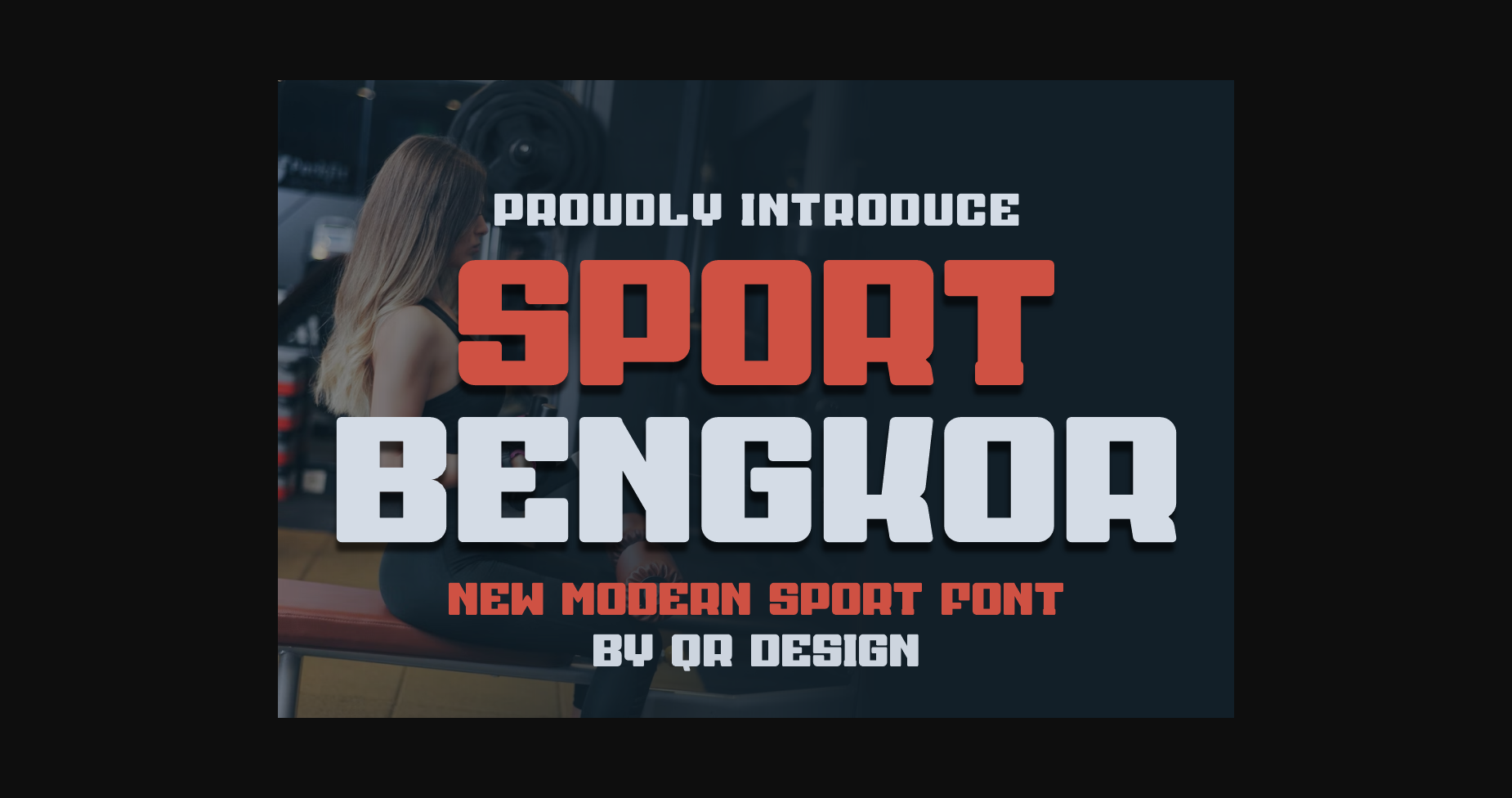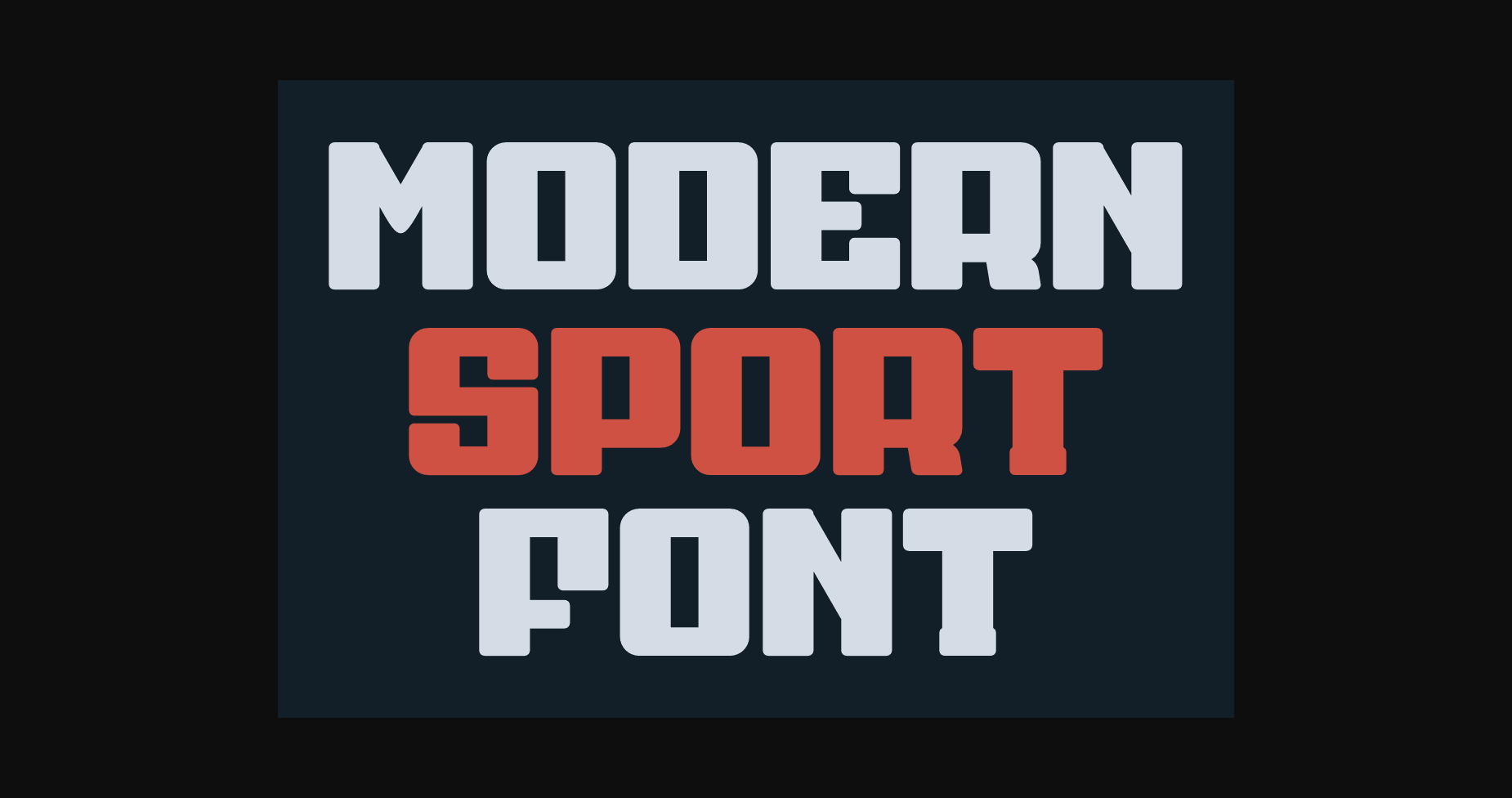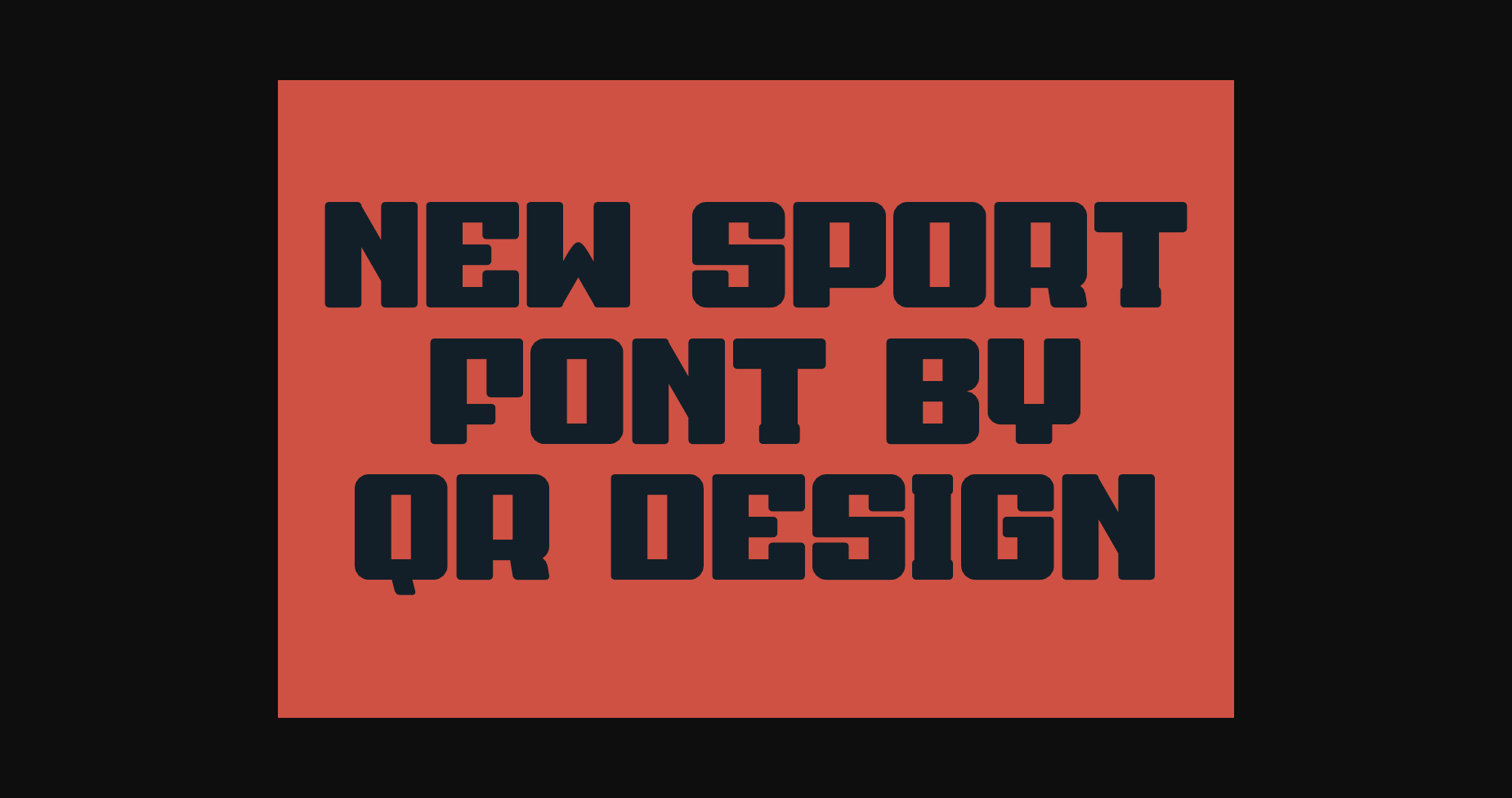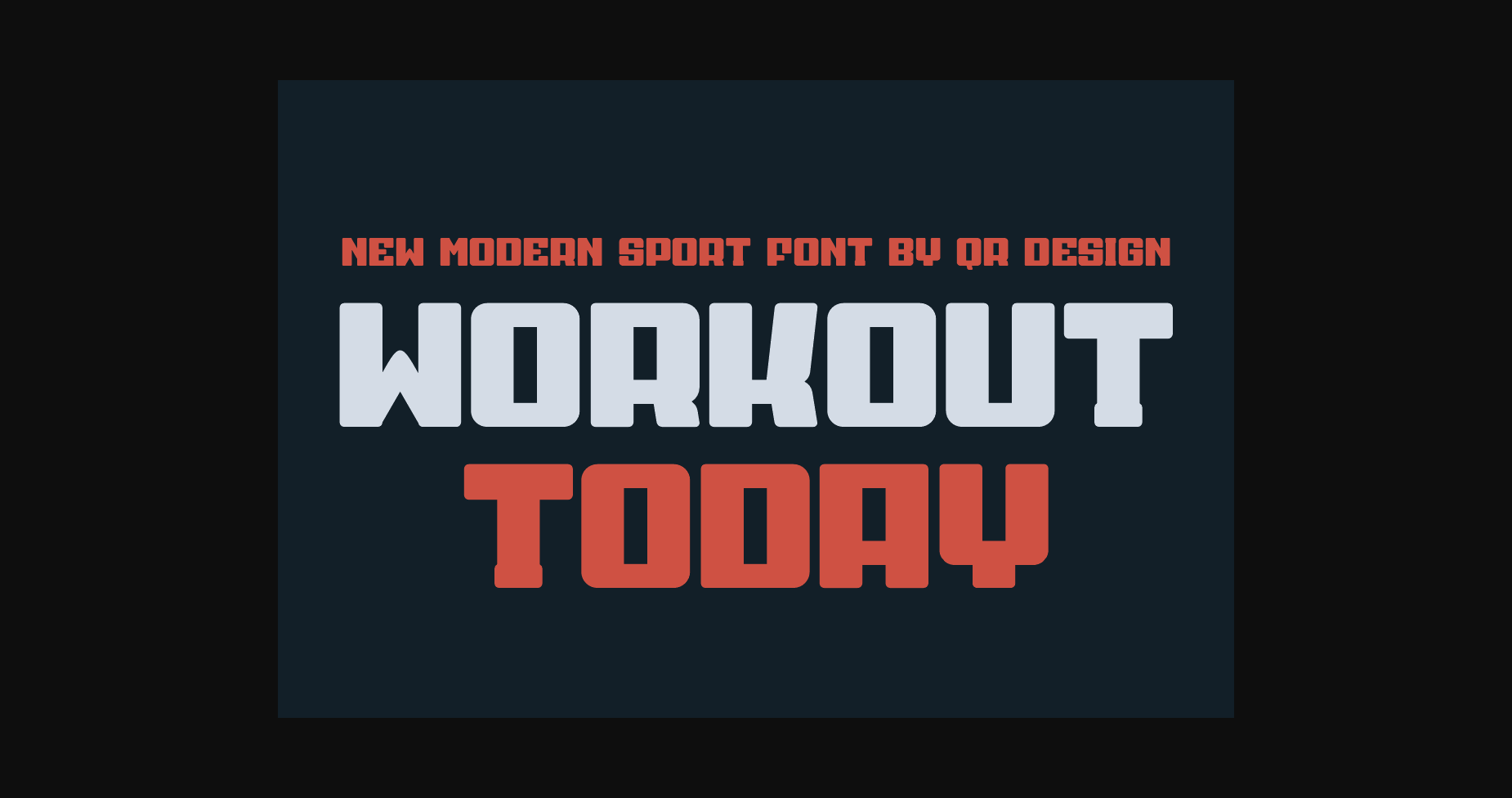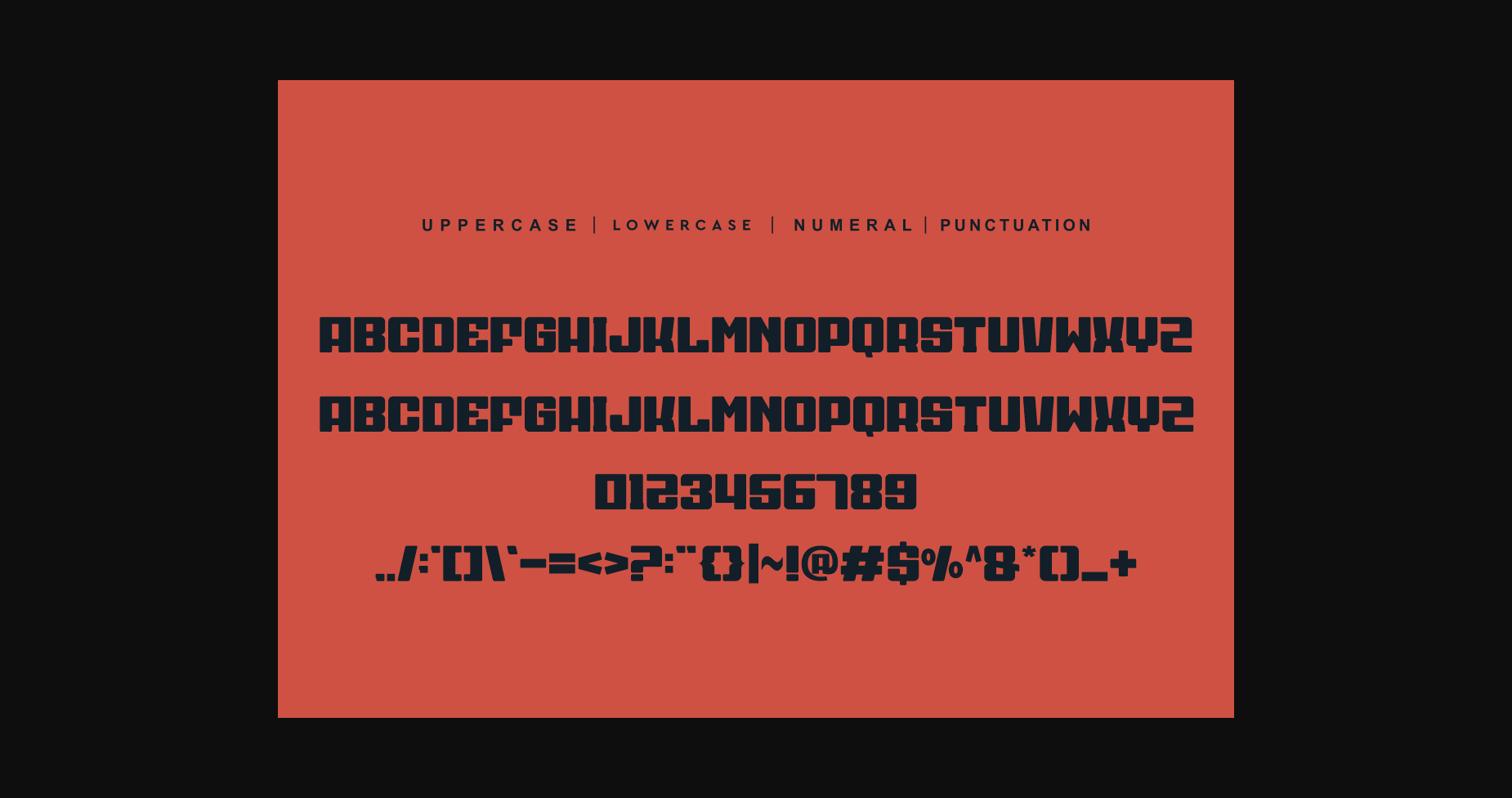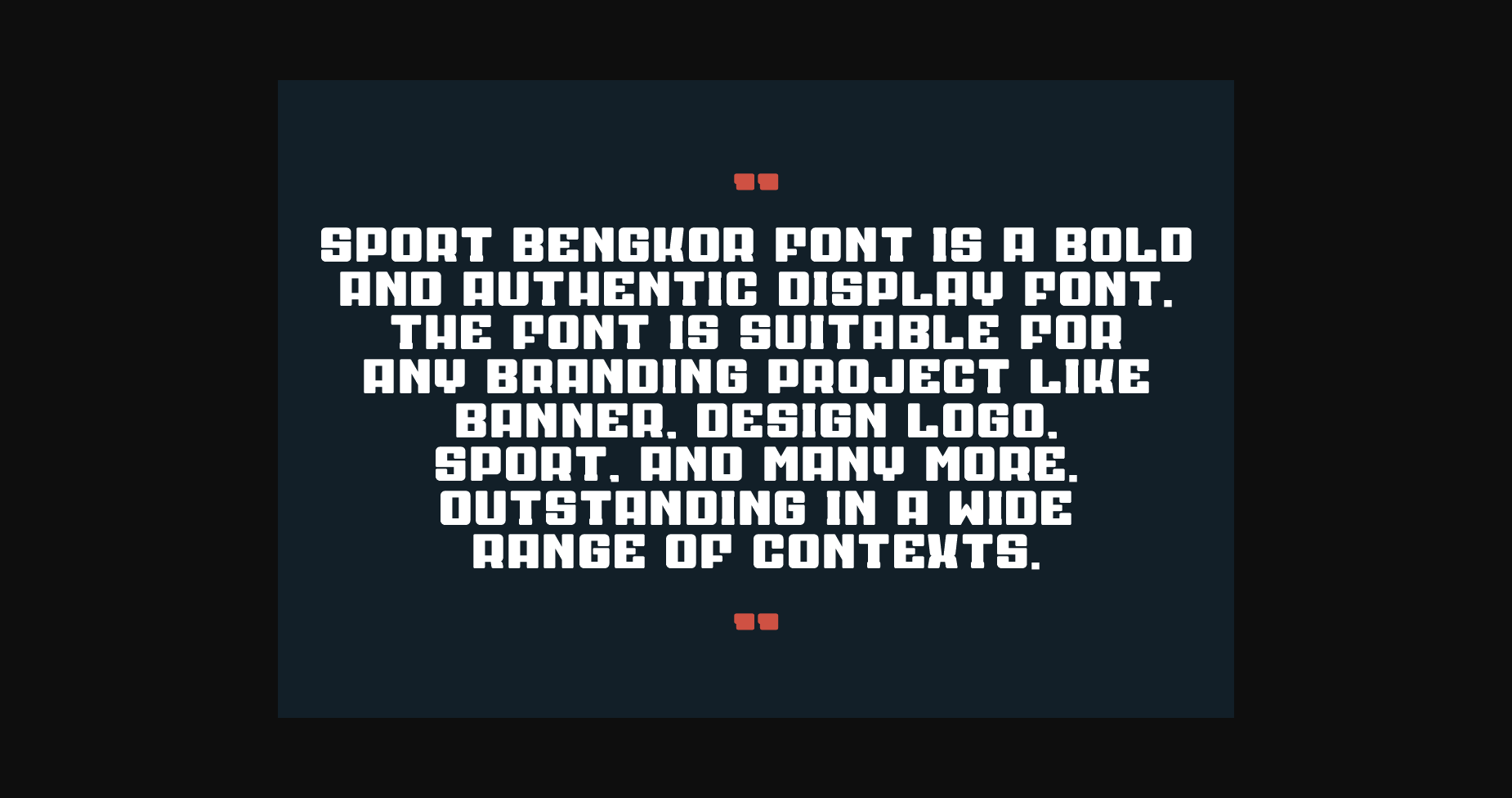
Sport Bengkor Font
About Sport Bengkor Font
Sport Bengkor Font is a bold and authentic Sans Serif font. The font is suitable for any branding project like logo, t-shirt printing, sport, and many more. Outstanding in a wide range of contexts.